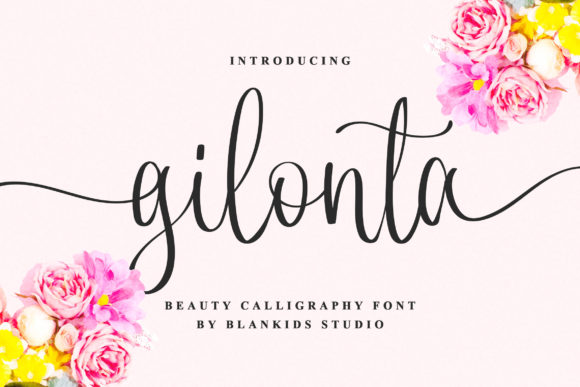
Welcome to the world of Gilonta Font, a breathtaking handwritten font that dances with beauty and elegance. Embark on a typographic journey where artistry meets functionality. Gilonta captivates with its enchanting script style, flowing effortlessly like a delicate melody. Its graceful curves and expressive strokes add a touch of sophistication to any design project, making it a must-have for creative individuals seeking to elevate their visual creations.
Gilonta's versatility shines in its ability to seamlessly blend with various design concepts. Whether you're crafting elegant wedding invitations, creating eye-catching logos that exude personality, or adding a touch of finesse to headlines and signatures, Gilonta gracefully adapts to your vision. Its versatility extends to diverse design projects, including branding materials, social media graphics, and artistic posters. Unleash your creativity and let Gilonta transform your ideas into stunning visual realities.
With Gilonta as your typographic companion, you'll discover a world of creative possibilities. Its charming style adds a personal touch to branding efforts, leaving a lasting impression on your audience. Create logos that resonate with your brand's unique identity, evoking emotions and making a statement. Gilonta's mesmerizing flow captivates attention, ensuring your designs stand out in a crowded digital landscape.
In the realm of wedding invitations, Gilonta's delicate strokes create an atmosphere of romance and elegance. Its graceful lines intertwine, forming a tapestry of love and commitment. Capture the heartfelt emotions of your special day with Gilonta, as it beautifully conveys the essence of your love story. Immerse your guests in an enchanting journey from the moment they receive their invitations, setting the tone for an unforgettable celebration.
Gilonta's expressiveness extends to the realm of headlines, where it commands attention with its bold presence. Its captivating curves and dynamic strokes demand to be noticed, making your headlines impossible to ignore. Whether you're crafting marketing materials, designing blog posts, or creating social media content, Gilonta ensures your messages cut through the noise and leave an indelible mark on your audience's minds.
Dive into the world of Gilonta Font and unlock a treasure trove of typographic elegance. Its versatility, expressiveness, and charm make it the perfect choice for designers, artists, and creative entrepreneurs seeking to captivate their audience. Elevate your designs to new heights with Gilonta and let your creativity shine brighter than ever before.